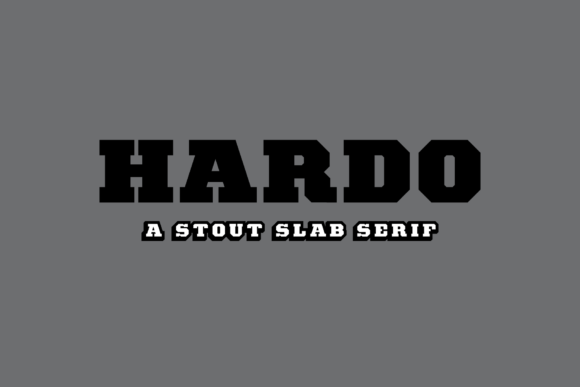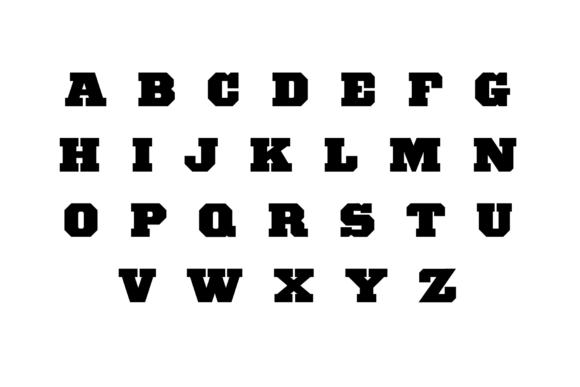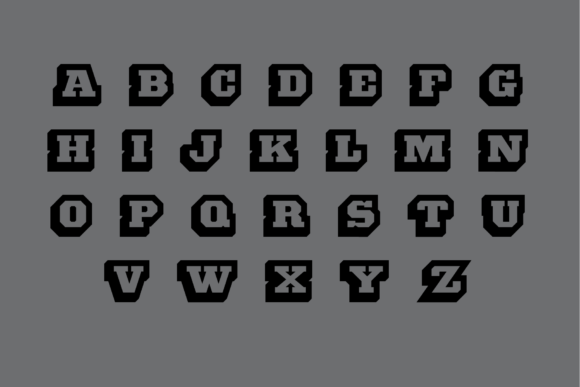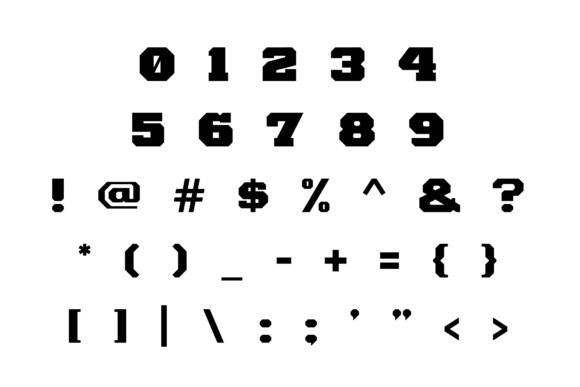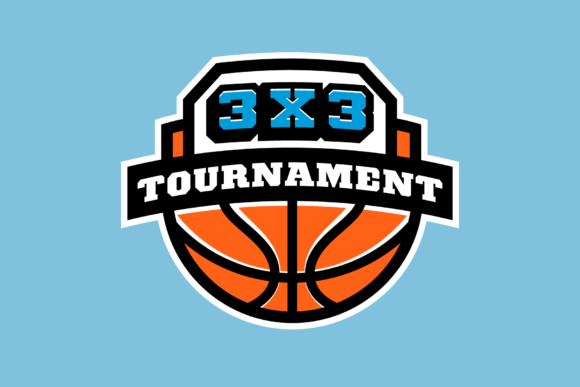
Hardo
Hardo: A Bold Slab Serif Font
Hardo is a bold slab serif font born out of the desire to dominate the sports font world. Bold, chunky, strong, and versatile, it is a must-have for your fonts library, as it will make a big impact on any creative design.
Key Features of Hardo
• Bold Design: Offers a strong and confident look suitable for impactful headlines.
• Slab Serif Structure: Features thick, rectangular serifs typical of slab serif fonts.
• Versatile Application: Ideal for both print and digital media projects.
• Sporty Appearance: Perfect for sports-related designs due to its dynamic style.
Ideal Uses for Hardo
Hardo’s unique characteristics make it particularly well-suited for:
When incorporating Hardo into your designs, consider these tips:
• Use for headlines or short blocks of text to showcase its bold style.
• Utilize its sporty appearance across various creative projects to enhance visual appeal.
Hardo is an excellent choice for designers looking to add a bold slab serif font to their typographic toolkit. Its ability to bring strength and style to various design projects makes it stand out in the world of typography. Whether you’re working on sports branding, creating layouts for magazines, or developing content that requires a touch of dynamism, Hardo offers the perfect blend of style and functionality.
Furthermore, Hardo’s unique design allows it to shine in various contexts. From vintage-inspired designs with a modern twist to more contemporary layouts that need a touch of uniqueness, this font can elevate your projects. Its striking yet functional style works particularly well in designs that require a thoughtful and engaging mood.
In conclusion, Hardo is a font that truly captures the essence of creativity and impact in typography. Its ability to work well in both minimalist projects and more elaborate layouts showcases its flexibility. For those looking to add a touch of unique charm to their work, Hardo can even enhance themed creations with its distinctive style. It’s the perfect choice for designers seeking to make a strong, stylish impact across a wide range of creative projects.